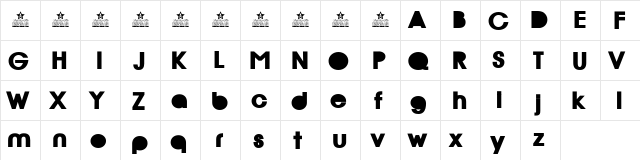
Rio Black Pesonal Use Regular
| Foundry | Billy Argel Fonts |
| Designer | billy argel |
Design Context for Rio Black Pesonal Use Typeface
Rio Black Pesonal Use offers clean, dependable letterforms without strong stylistic allegiance, making it a practical choice for designers who need flexibility.